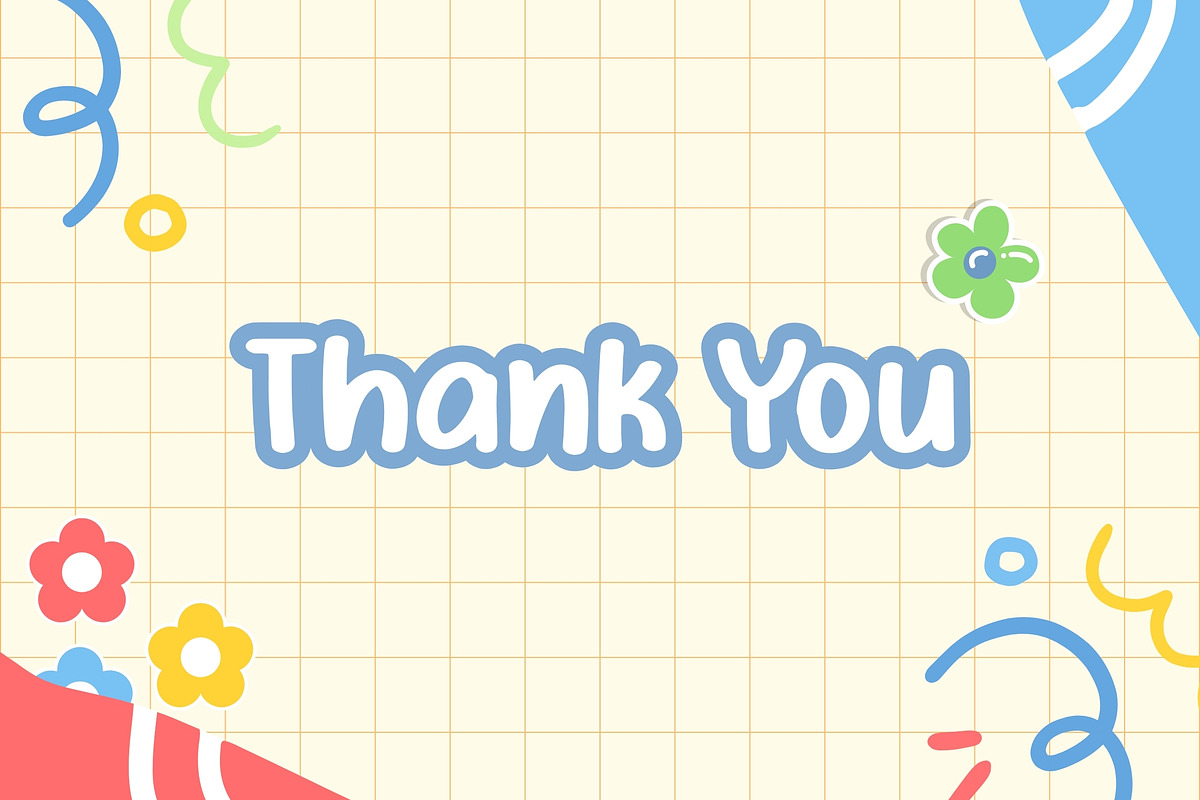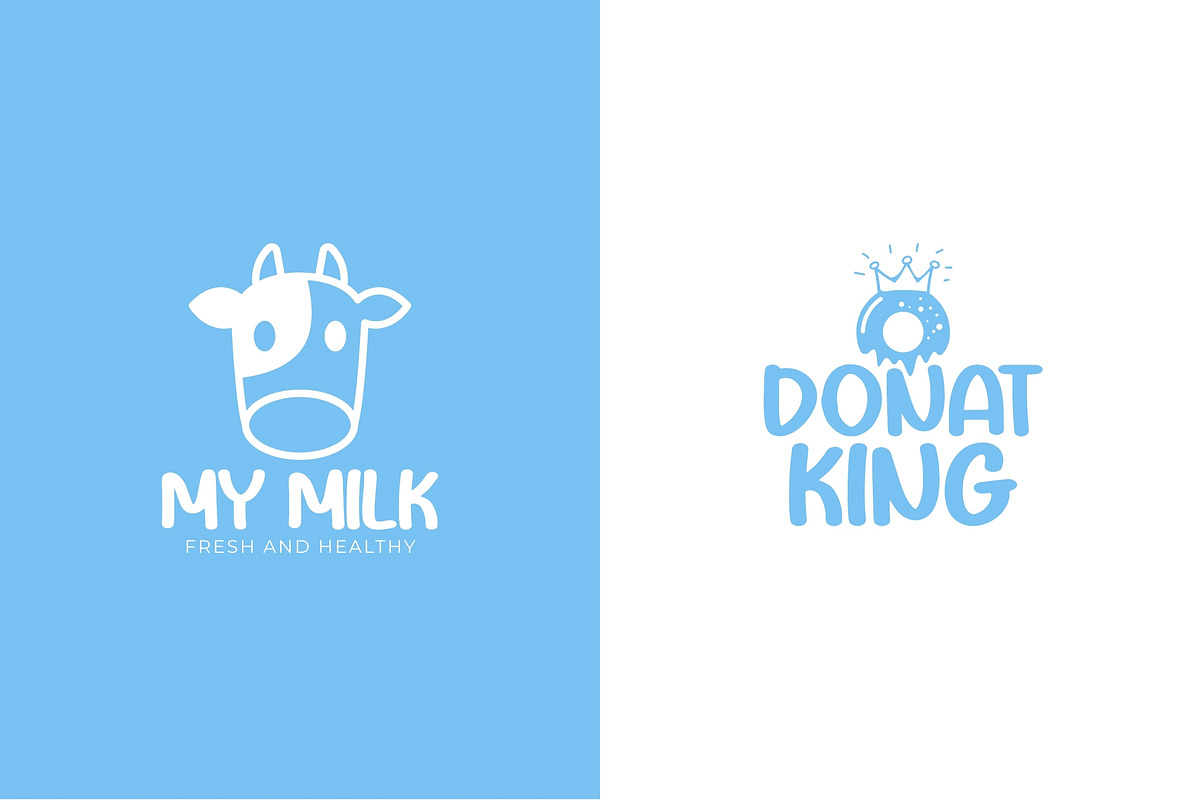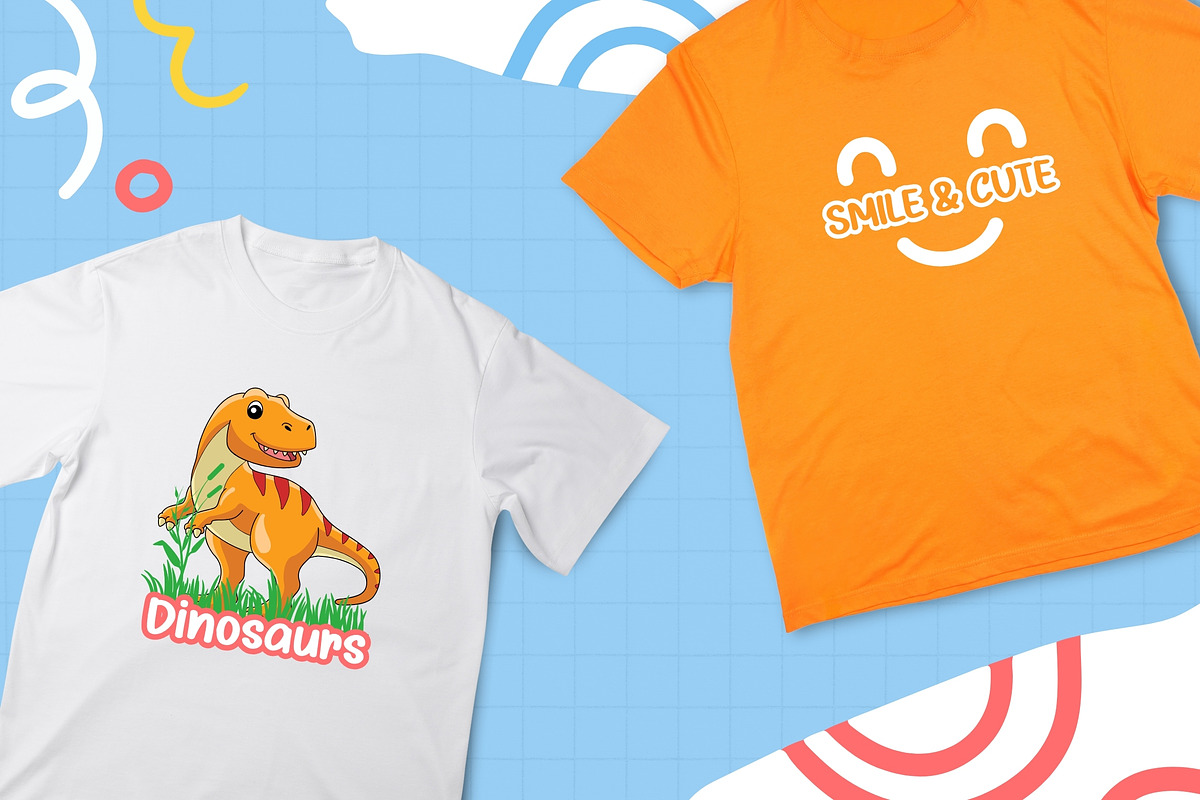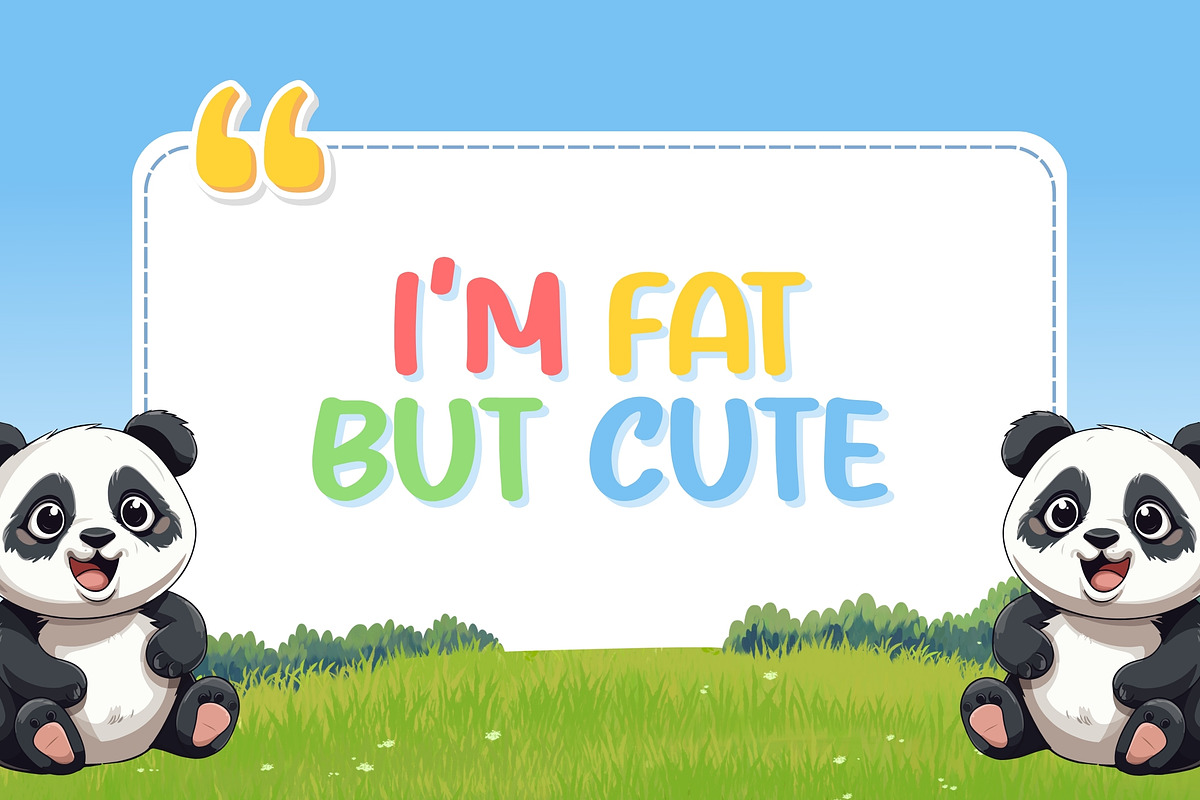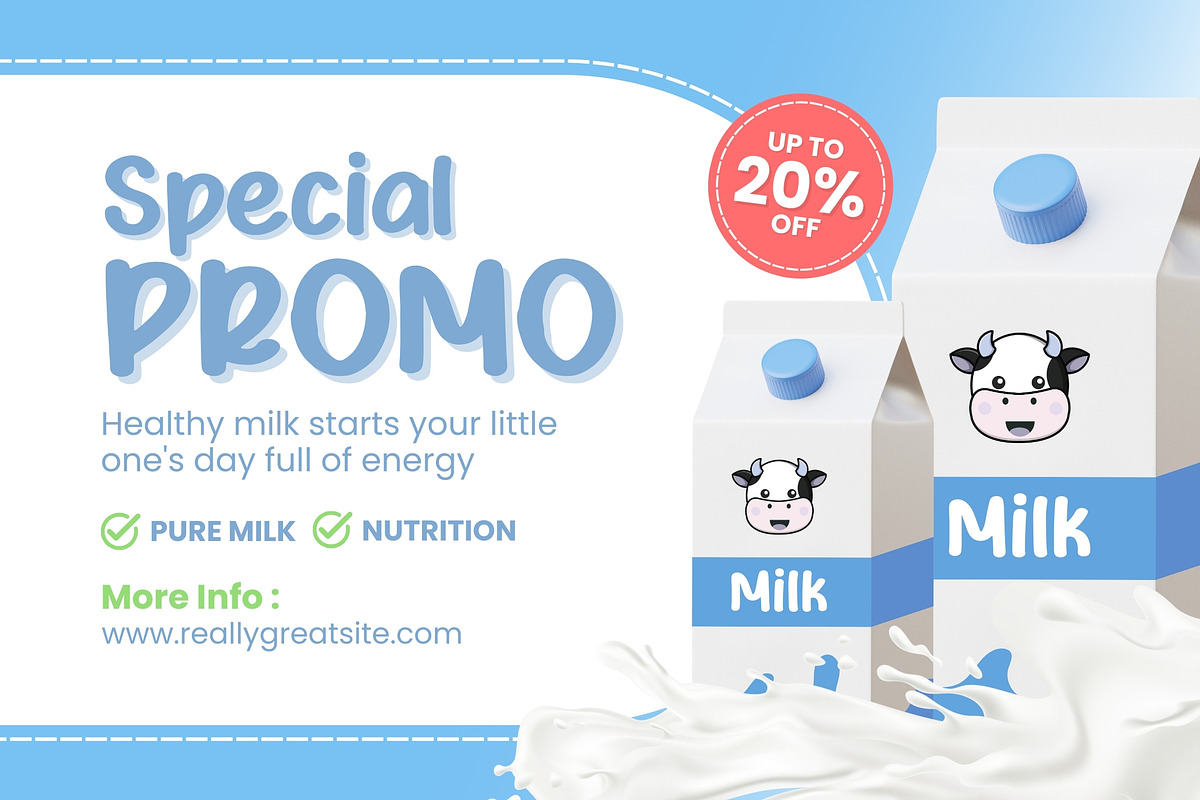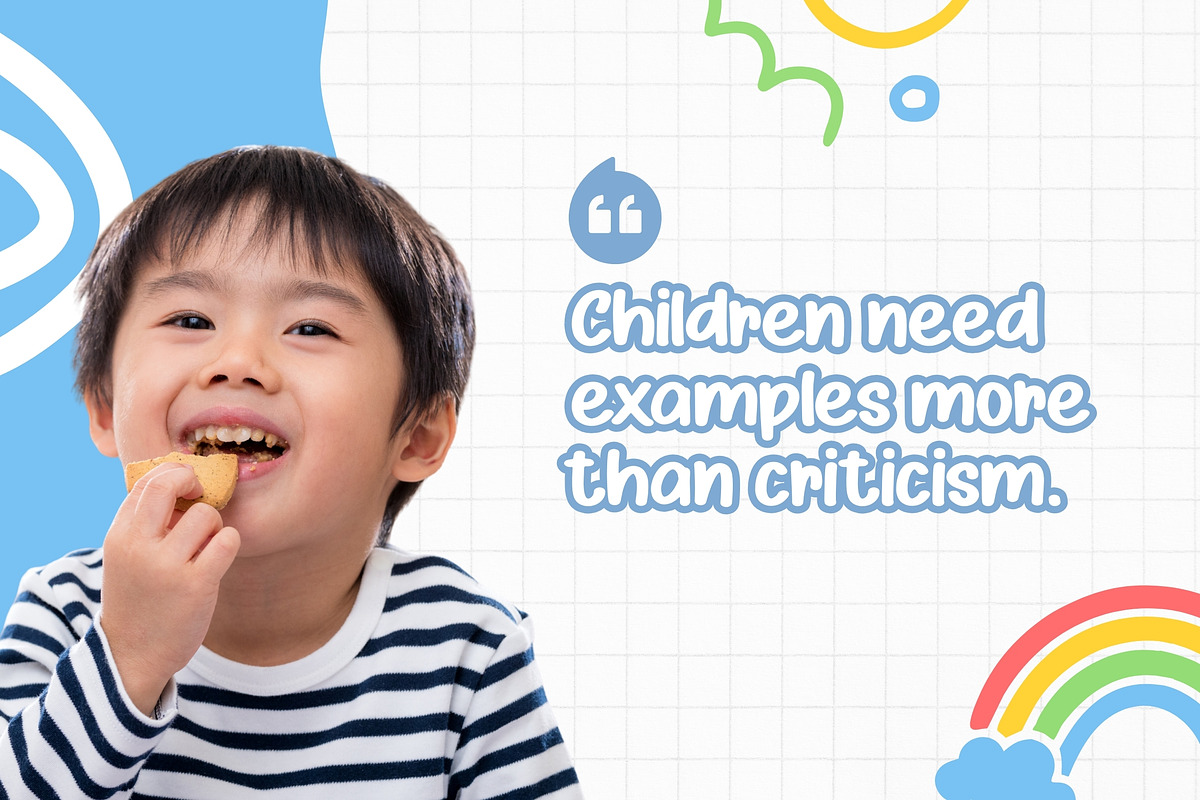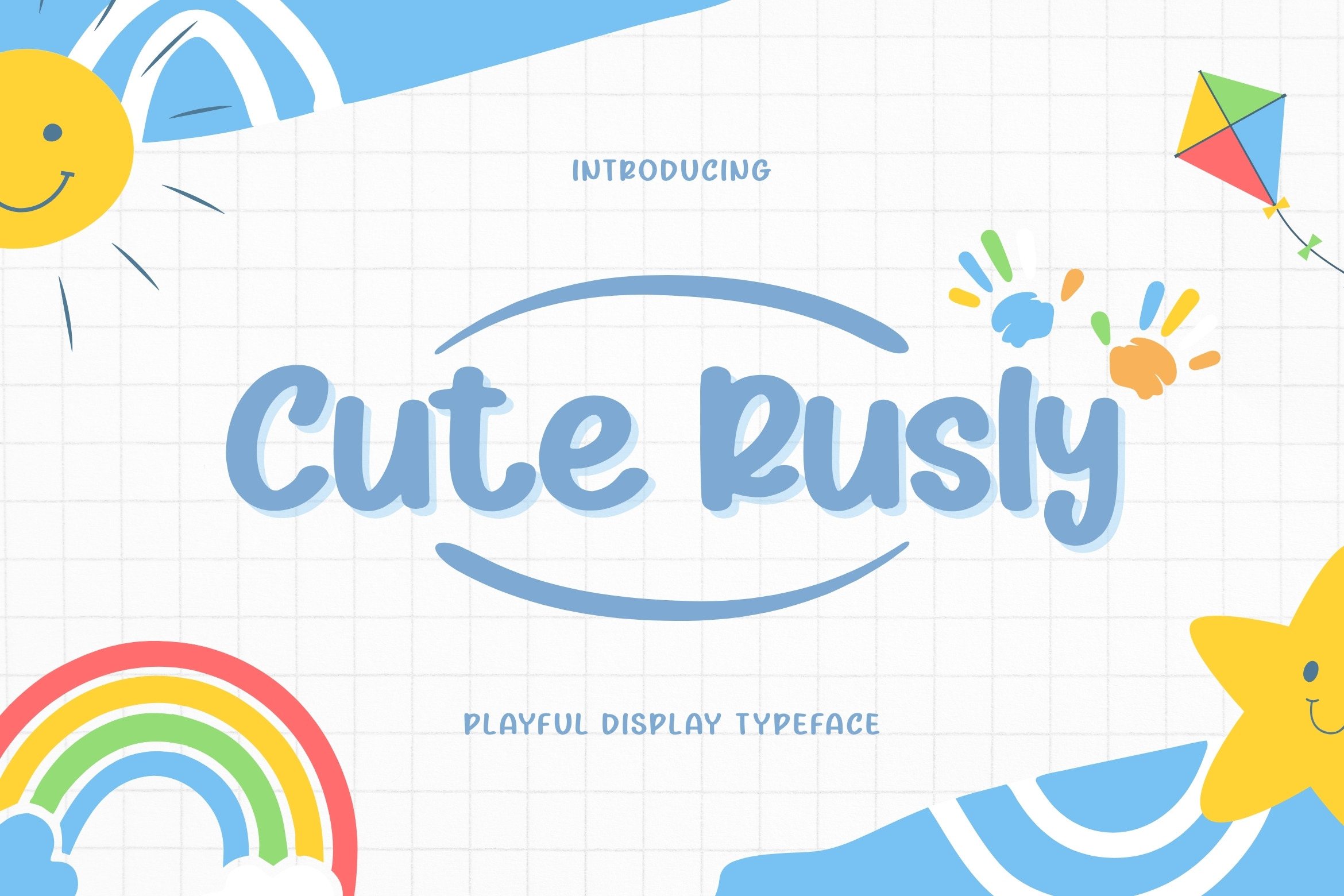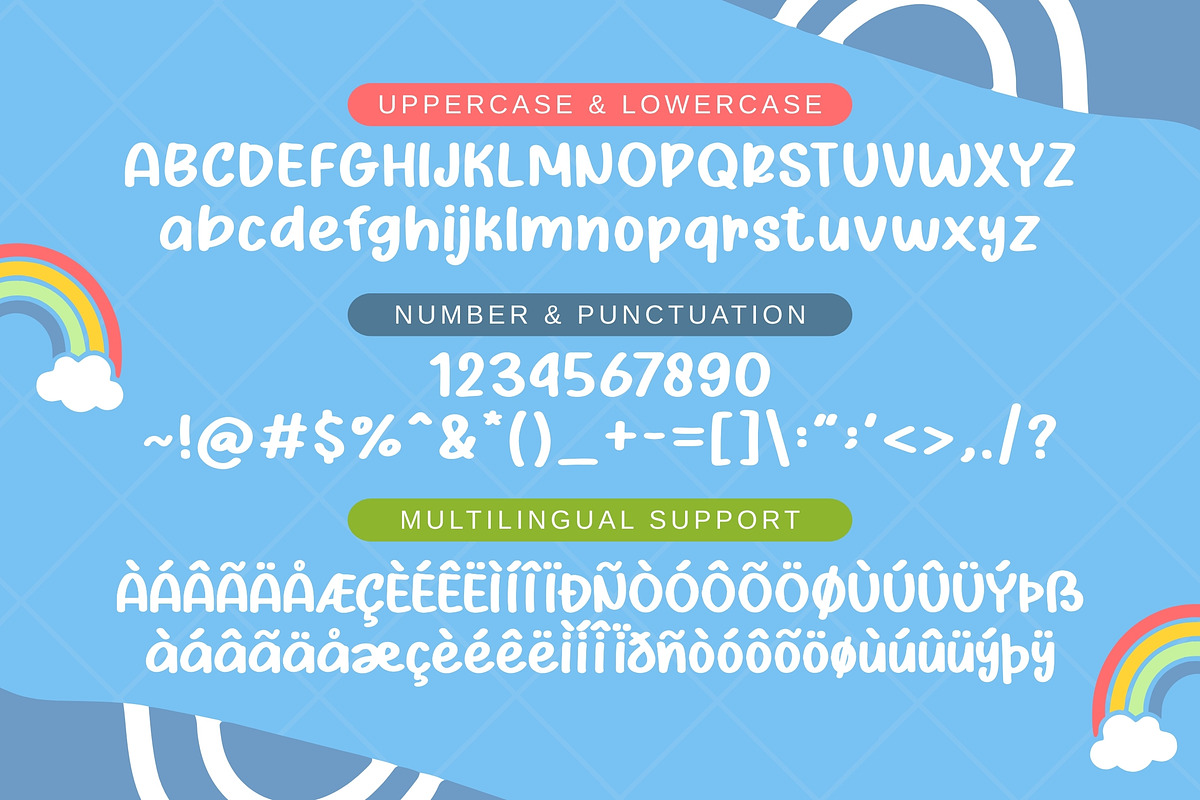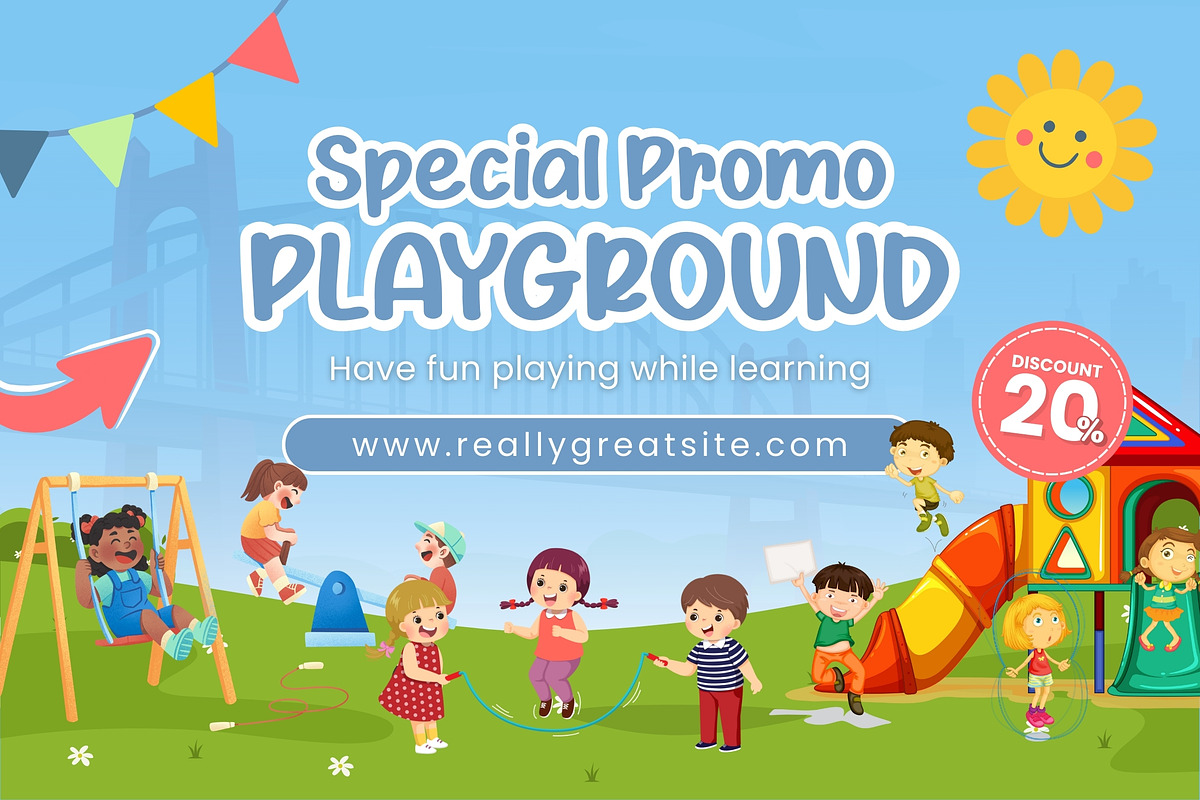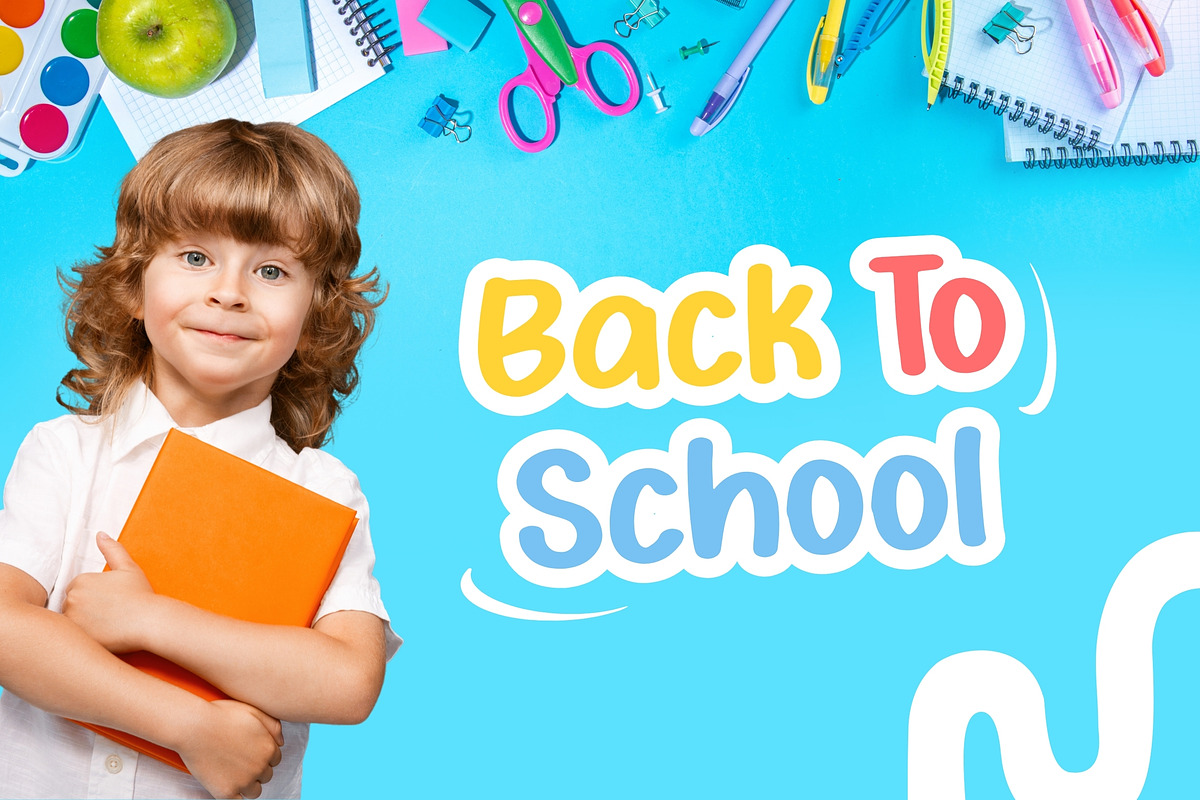
Cute Rusly – Cheerful Rounded Font
Cute Rusly is a cheerful rounded font designed to bring a bright, happy, and friendly feel to children-focused designs. With its smooth curves and playful proportions, this font creates a joyful impression while staying clean and easy to read.
Cute Rusly is perfect for projects that need to feel fun, positive, and welcoming, making it a great choice for both creative and educational purposes.
- Children’s books and playful reading materials
- Educational designs, worksheets, and posters
- Kids branding, packaging, and labels
- Fun headlines, titles, and logos
- Social media and creative content for kids
- Rounded and playful display style
- Multilingual character support
- Kid-friendly and highly readable
- Suitable for print and digital use
Why Choose Cute Rusly? Cute Rusly helps your designs feel lively, approachable, and full of joy. Its friendly letterforms make it ideal for designers and brands that want to communicate positivity, fun, and warmth especially in children’s and family-oriented projects.